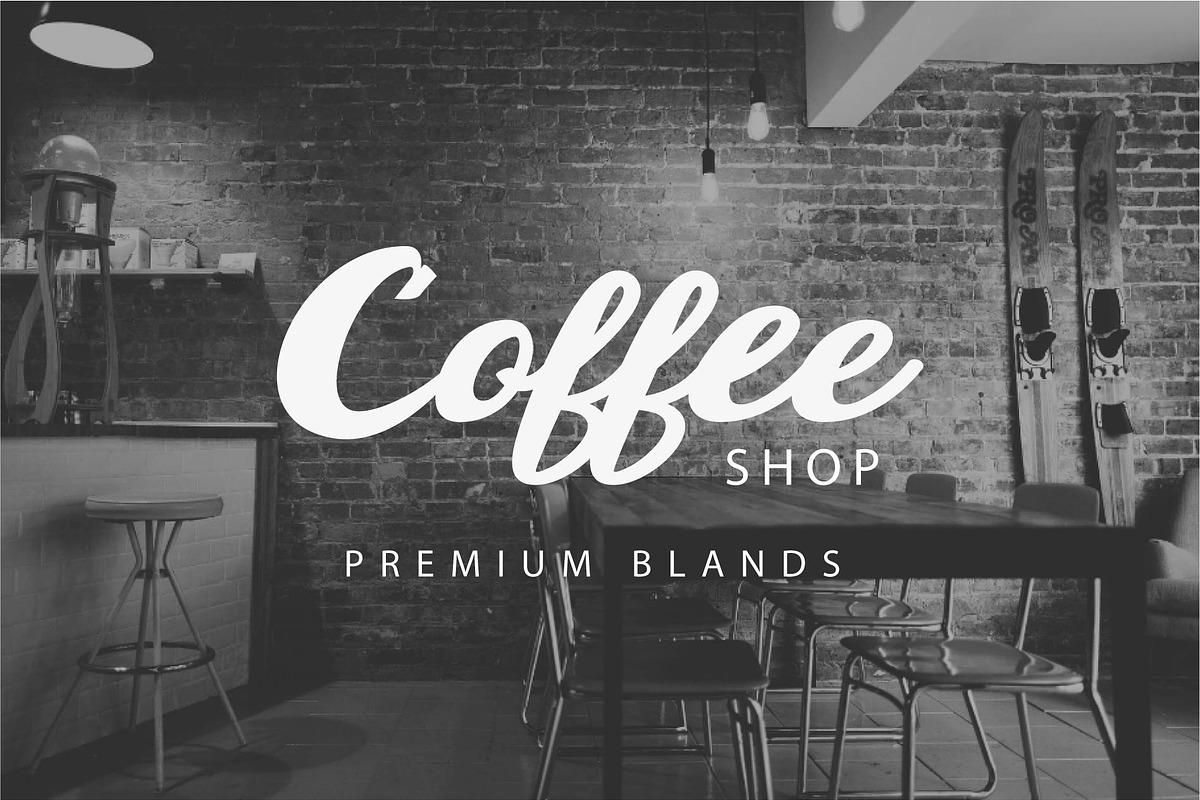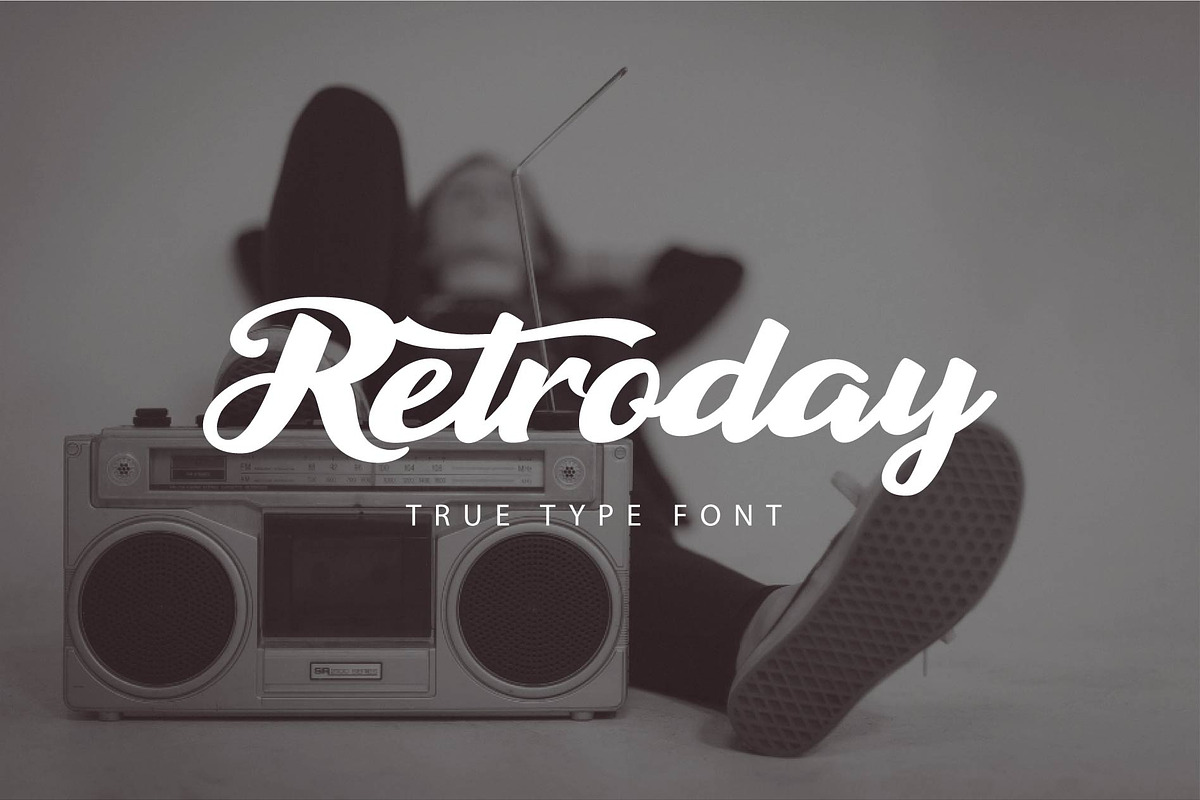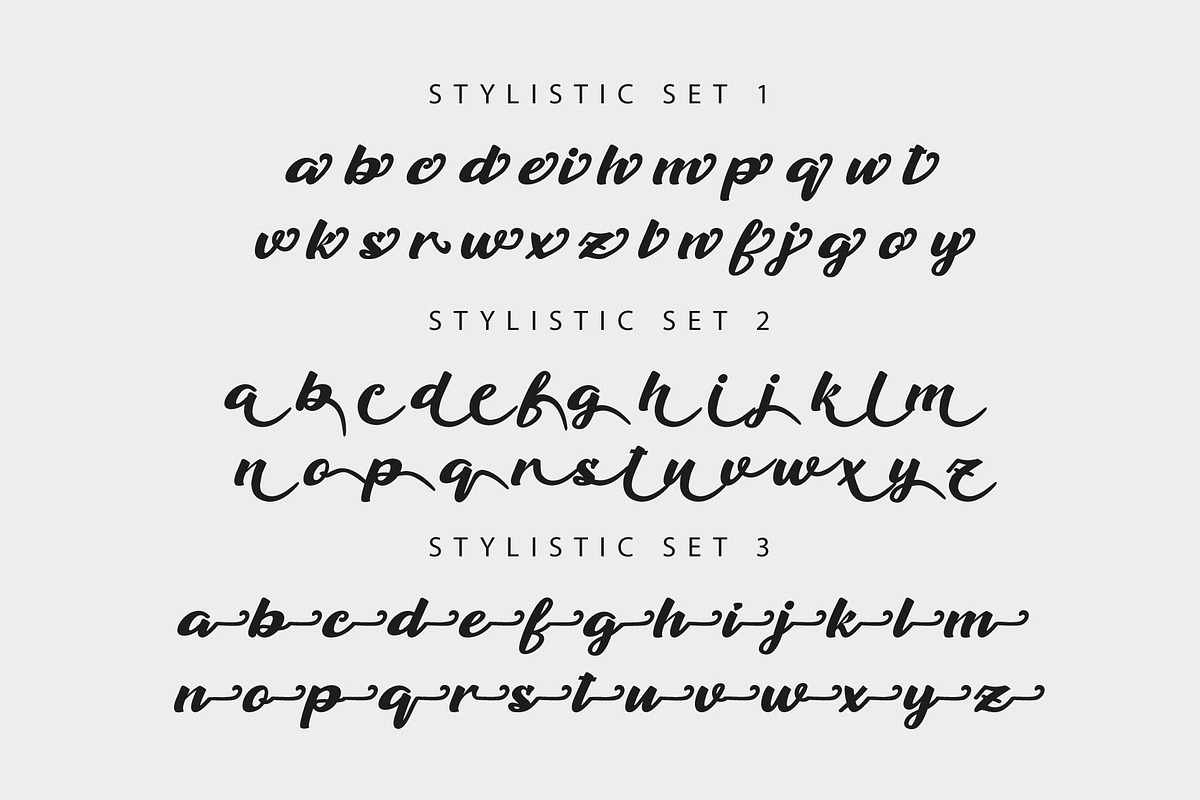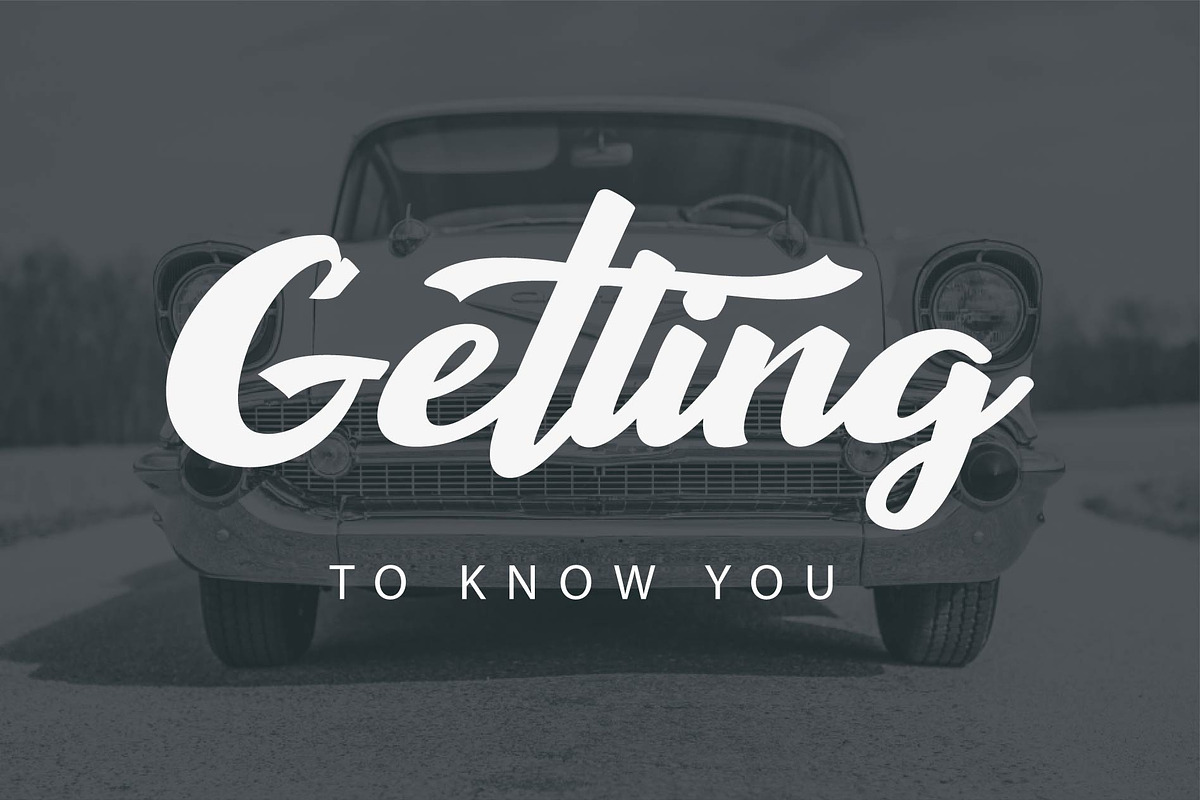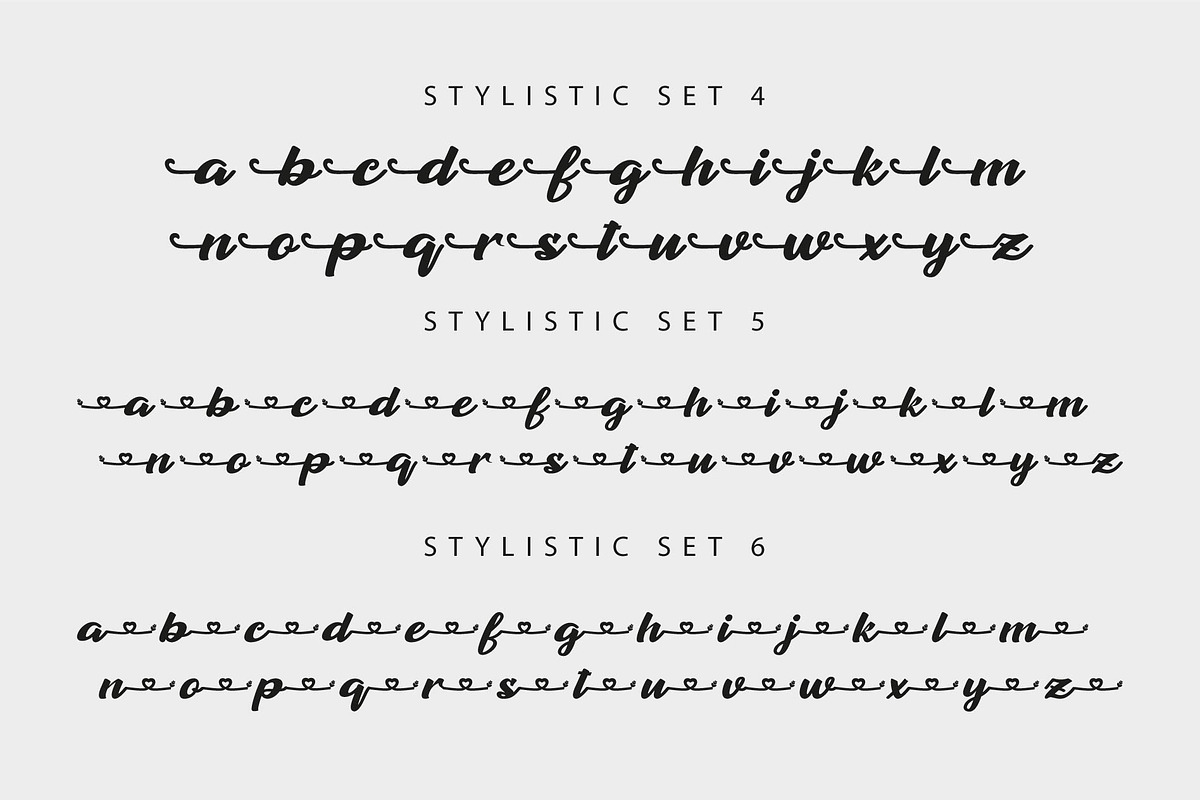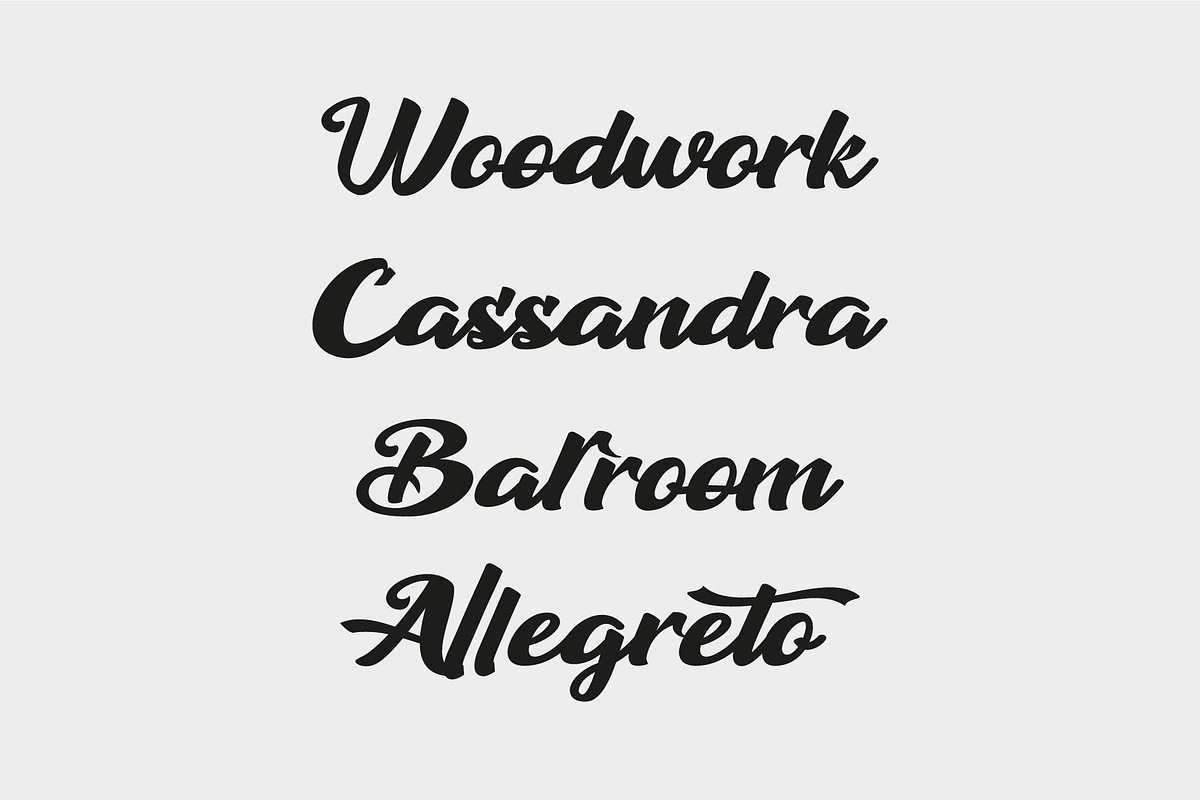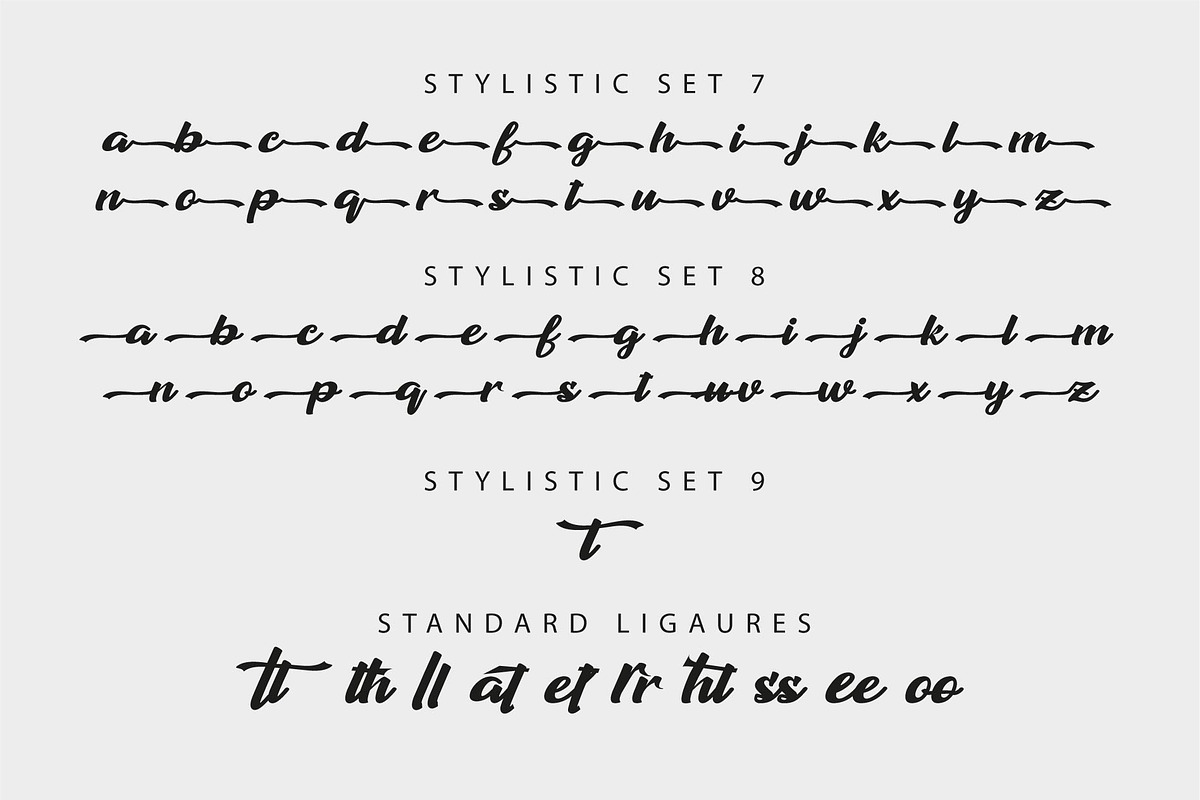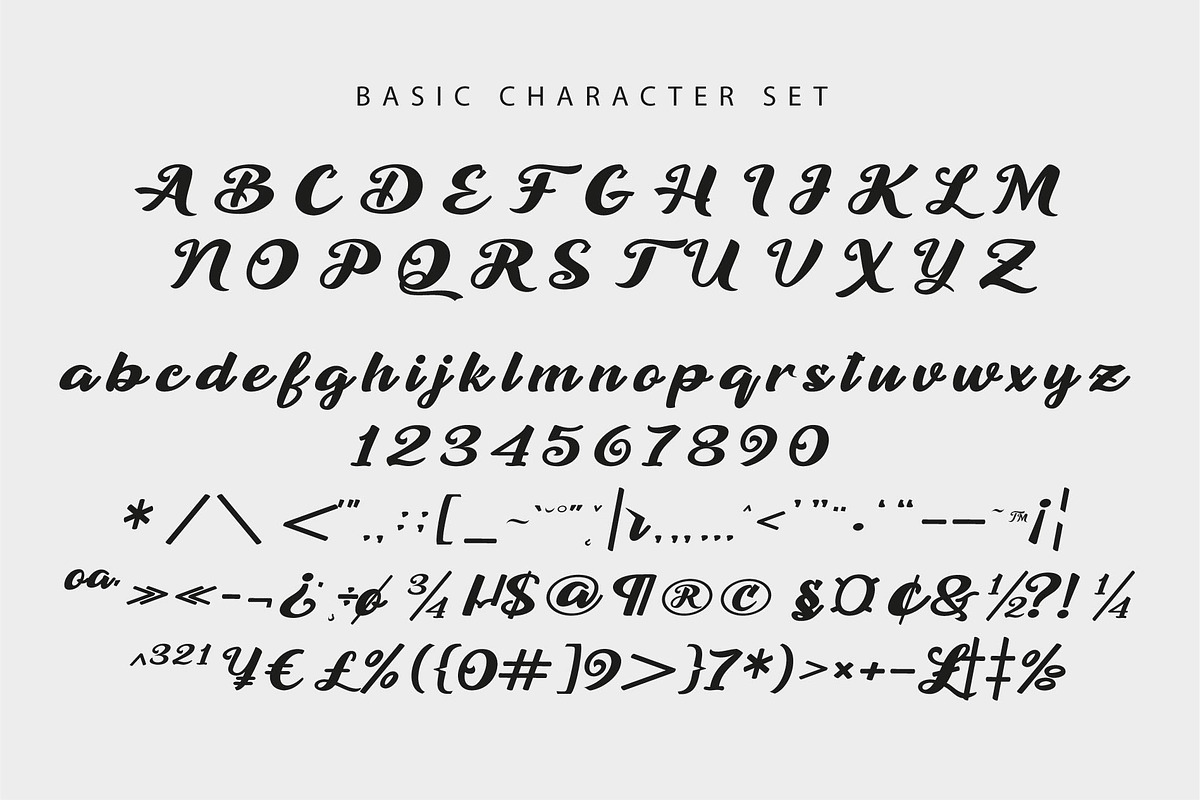
Retroday
Introducing Retroday - The Captivating Modern Calligraphy Font
Retroday, crafted with consistent and precise strokes, offers a minimalist, luxurious, and elegant feel. Inspired by classical calligraphy, this font is perfect for adding a graceful, beautiful, feminine, and dramatic touch to your designs.
Why Choose Retroday?
- Elegant and Classic: Ideal for wedding designs, invitations, logos, romantic quotes, labels, and branding.
- Comprehensive: Includes a complete set of characters with over 500 glyphs and multilingual support.
- Versatile: Equipped with hundreds of alternate characters to enhance any design.
- Uppercase and lowercase letters
- Stylistic alternates
- Stylistic sets 01 - 09